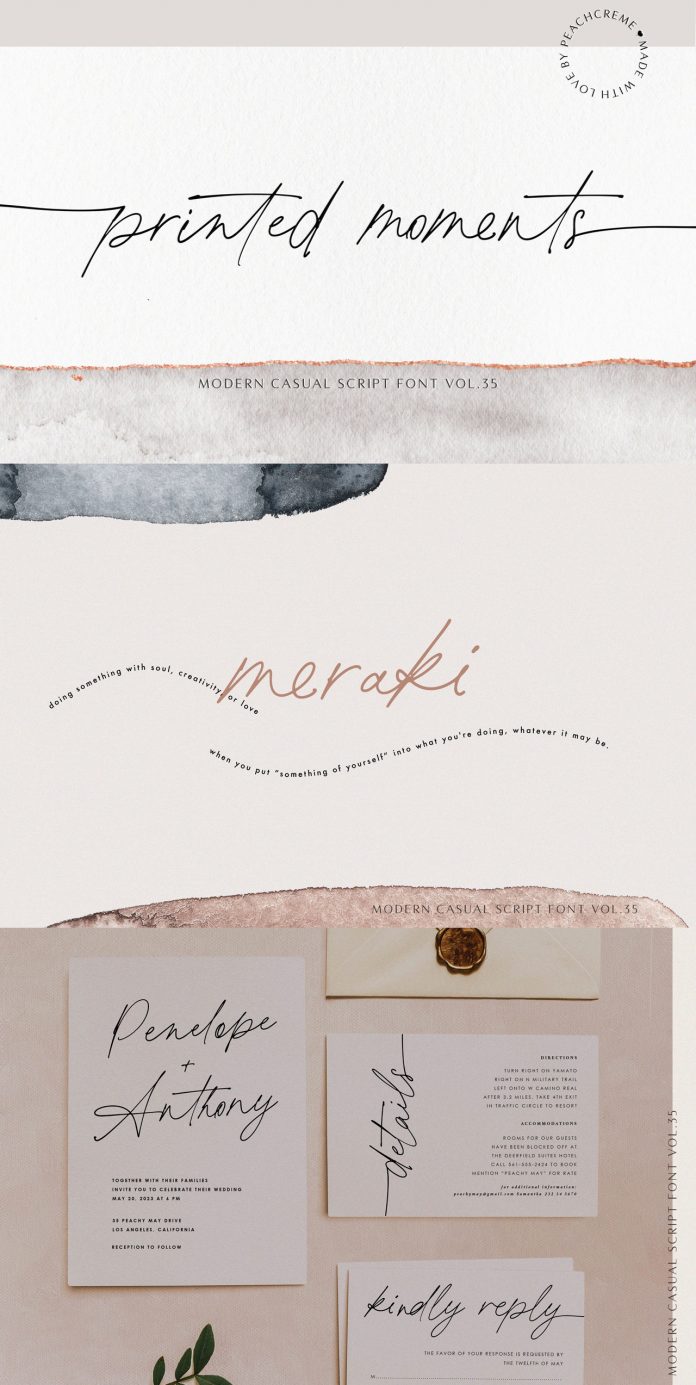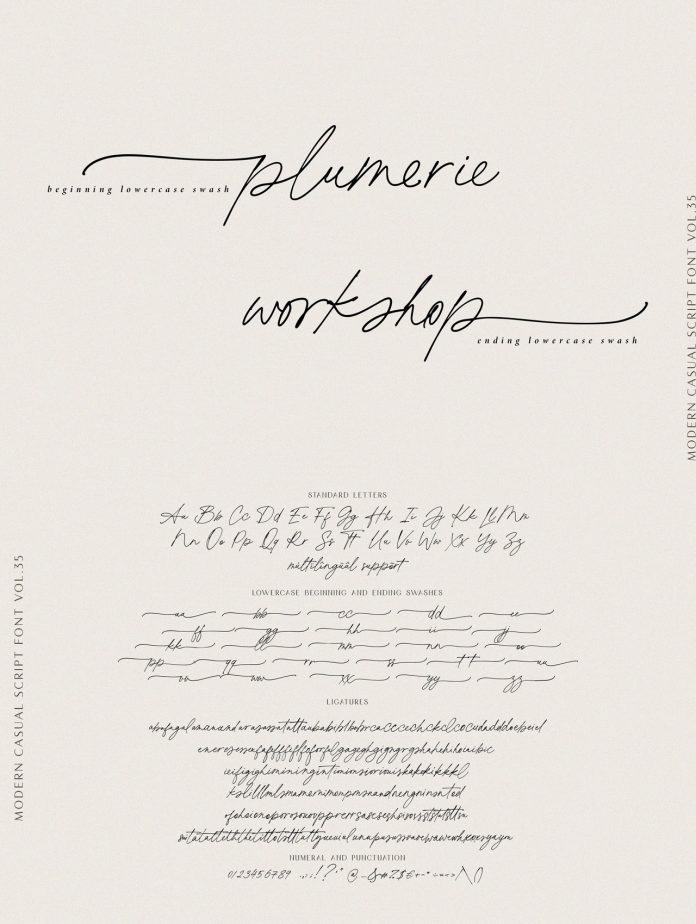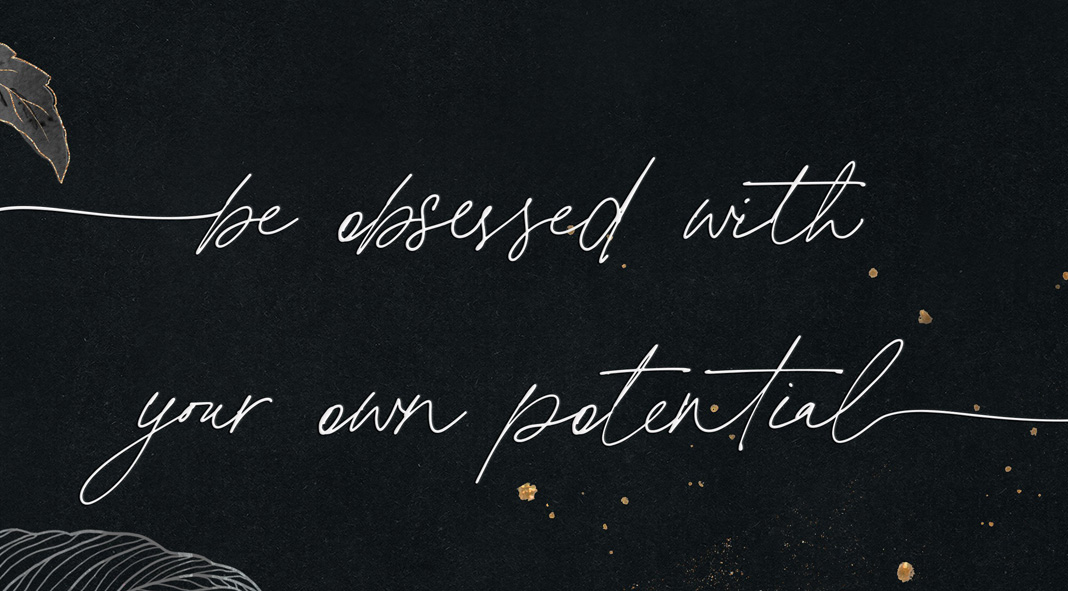
Printed Moments, a casual script font by Gulya aka Peach Cream.
Printed Moments is a new script font with a casual flair. It comes with an extensive set of uppercase and lowercase letters as well as multilingual symbols, numerals, punctuation, and 134 ligatures. Its typeface is characterized by a smooth ball pen texture. Furthermore, it includes beginning and ending lowercase ligatures. Learn more below or click on the following link to purchase the typeface for a very low budget.
The handwritten style of the typeface is well suited for a wide range of graphic design projects including greeting cards, invitations, website headers, branding, packaging, just to name a few. It is available as desktop, webfont, epub, and app version. To learn more, just click on the following link.